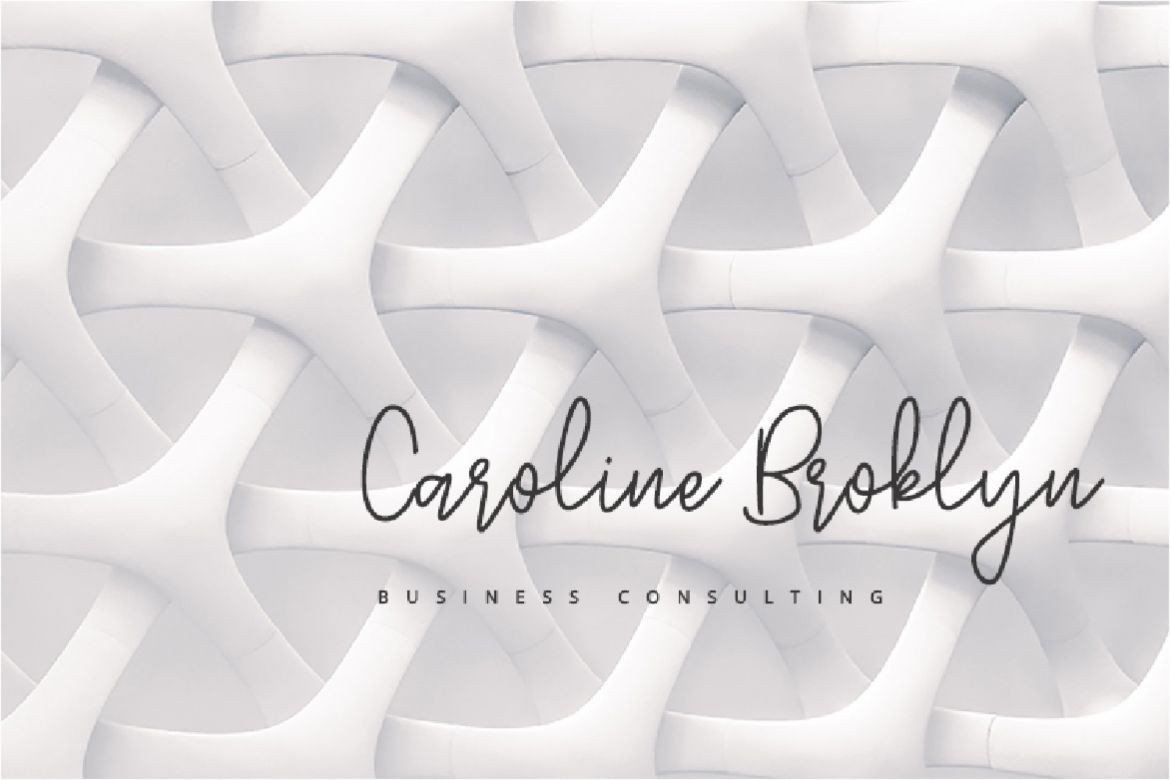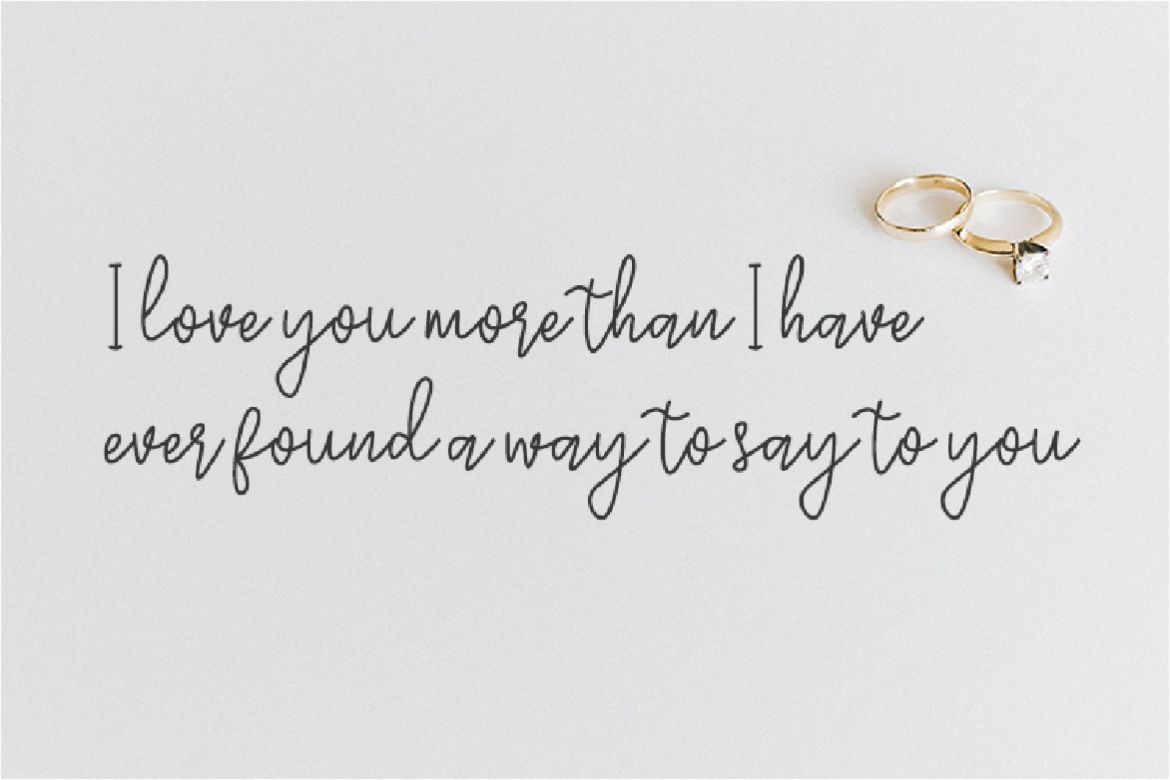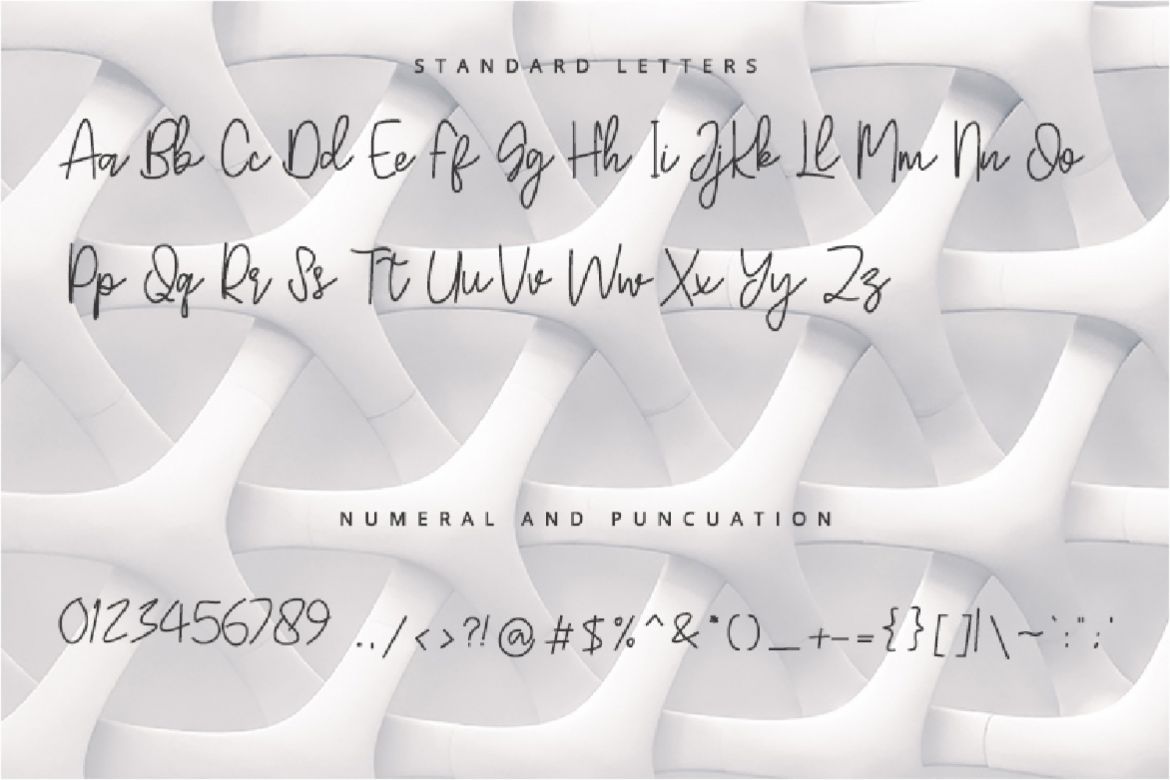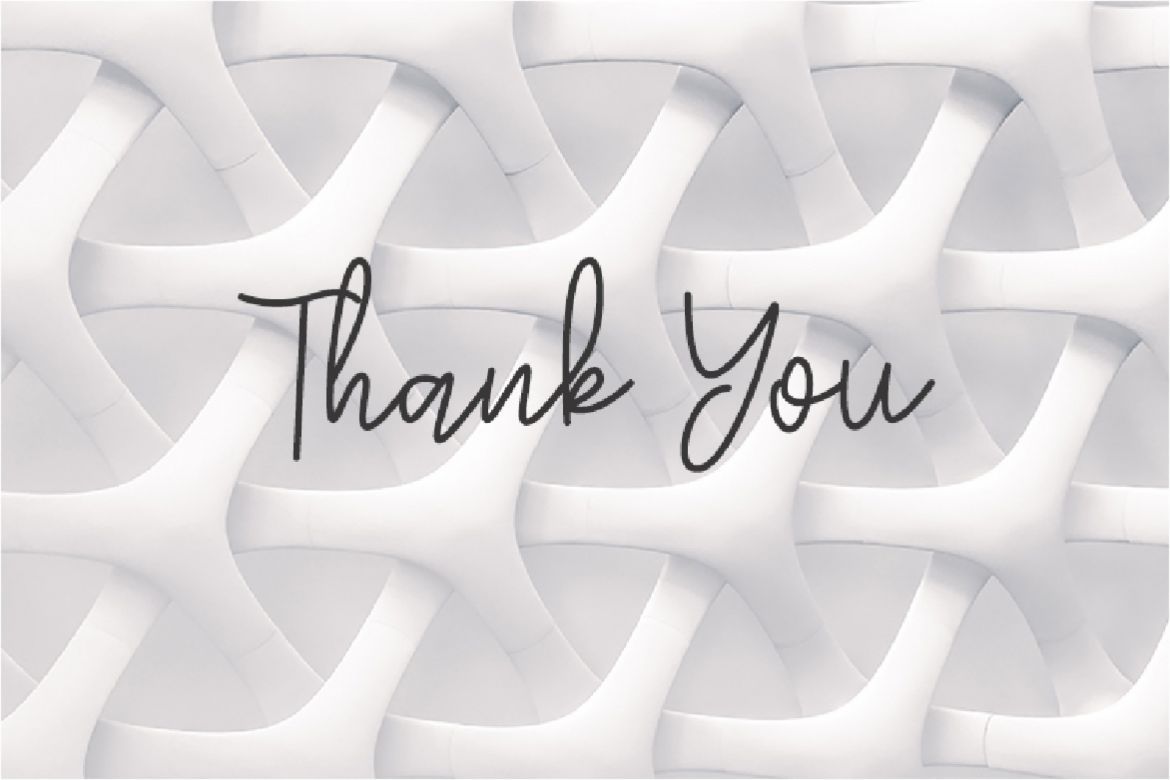
Seraphine - Handwritten Font
Seraphine is handwritten font. Seraphine is perfect for your all design project such as wedding design, invitation, book cover, title of book page, typography, lettering, etc.